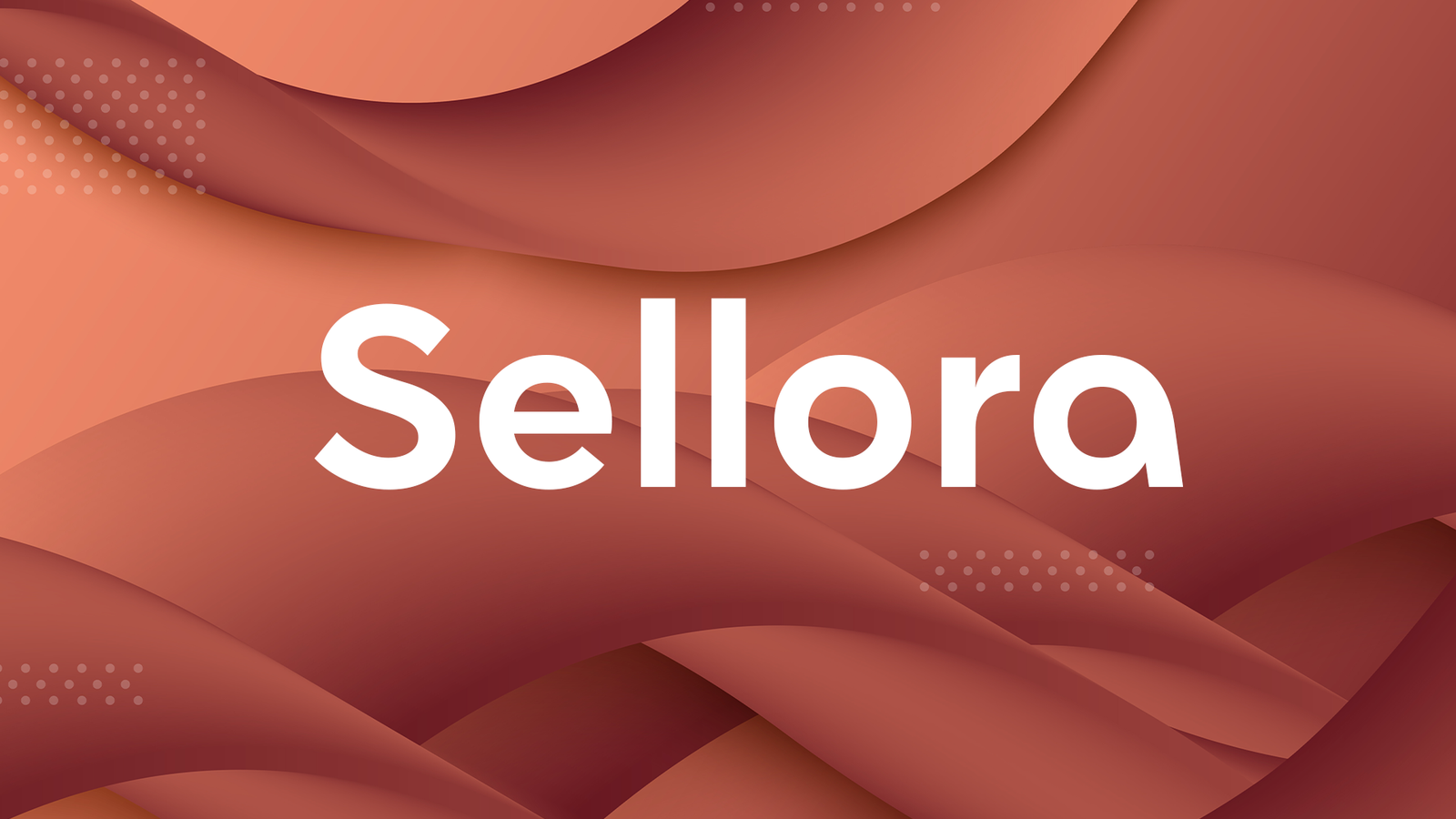
Display fonts are designed to grab attention and make a bold statement in branding, posters, and headlines. These fonts often feature unique letterforms, dramatic contrast, and artistic styling. Popular free display fonts include **Bebas Neue**, known for its tall, clean lines, **Playfair Display**, which adds a touch of elegance, and **Oswald**, a strong, modern choice. Display fonts can be serif or sans-serif, often with decorative or geometric elements that stand out in large sizes. They are perfect for logos, magazine covers, and marketing materials, adding personality and impact to designs. When using display fonts, pairing them with simpler body text ensures readability and balance. Many high-quality display fonts are available for free on platforms like FreezyStock and Google Fonts, making it easy to enhance any creative project.